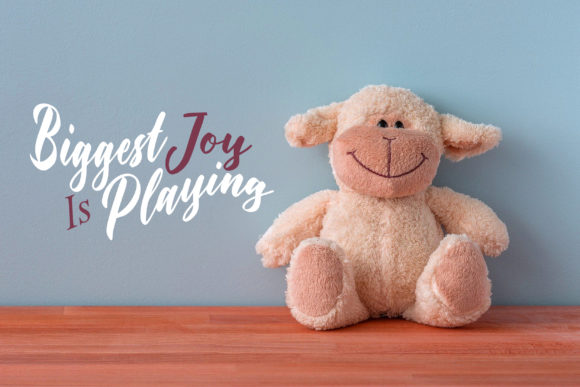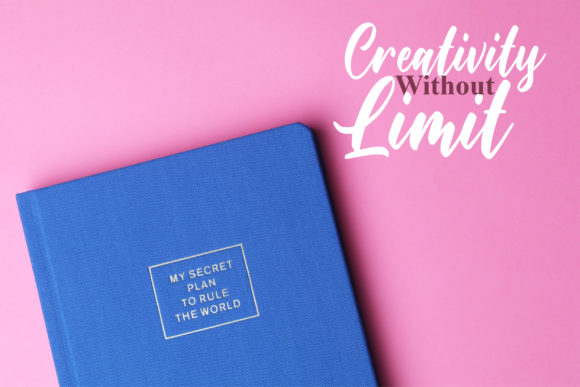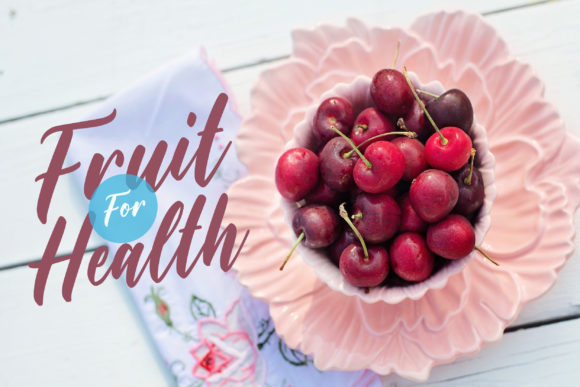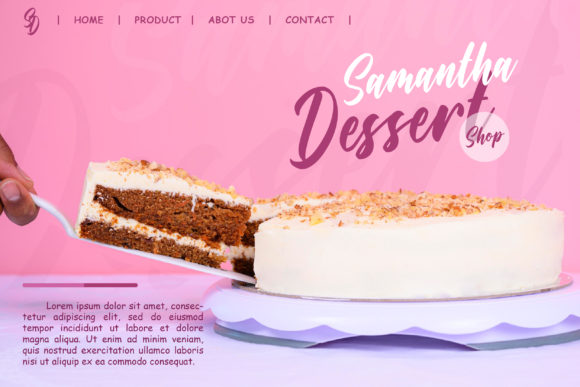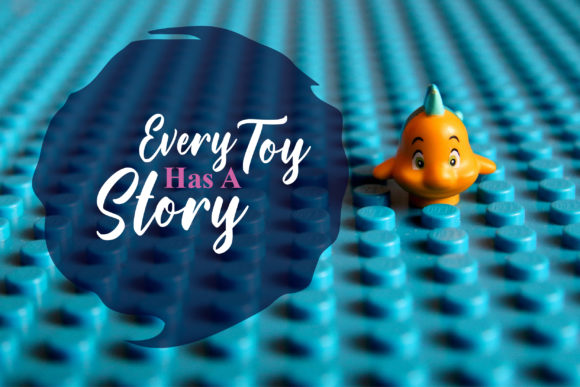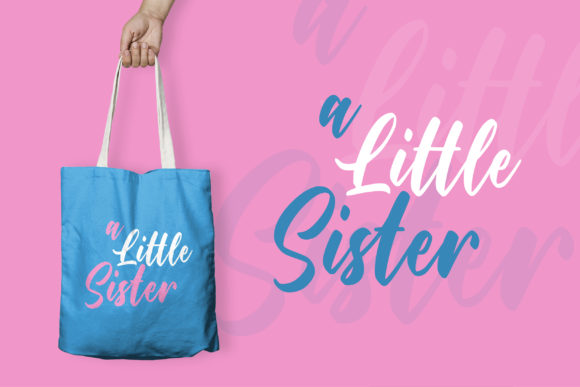
Introduction to Maringue Wreath Font Font
Fonts play a crucial role in design, and the Maringue Wreath Font font is a typeface that brings both character and versatility to any project. Whether you’re working on a branding project, a website, or a print design, the Maringue Wreath Font font offers a unique style that can elevate your work.
Maringue Wreath is an incredibly beautiful script font.
It has a classy, elegant, and modern look which can be used for logos, branding, invitations, stationery, wedding designs, social media posts, and much more .
Key Features of Maringue Wreath Font Font
Why Choose Maringue Wreath Font Font?
The Maringue Wreath Font font is more than just a typeface – it’s a design tool that helps you communicate your message with style and clarity. Its unique character set and versatile design make it suitable for a wide range of applications, from elegant invitations to bold headlines.
With its carefully crafted letterforms and balanced proportions, the Maringue Wreath Font font ensures readability and visual appeal across all mediums.
What makes Maringue Wreath Font font special?
The Maringue Wreath Font font stands out with its unique design, exceptional readability, and versatility across various design applications.